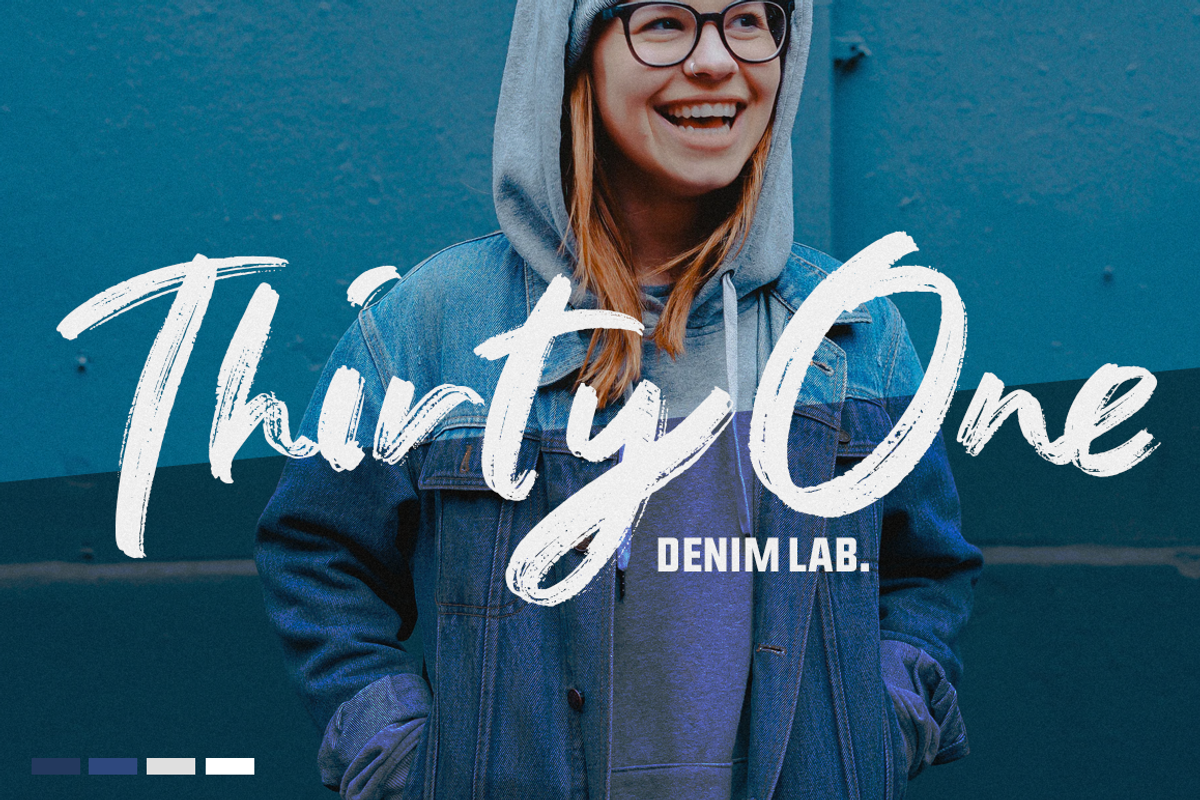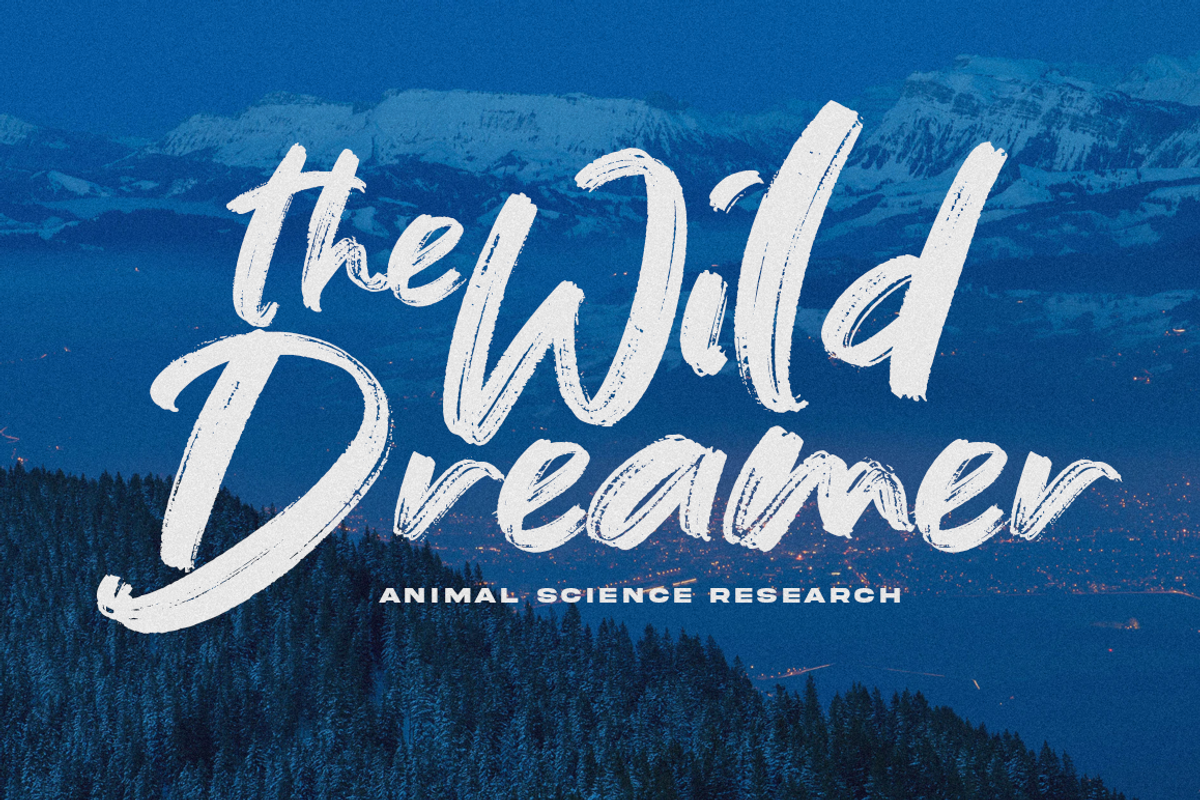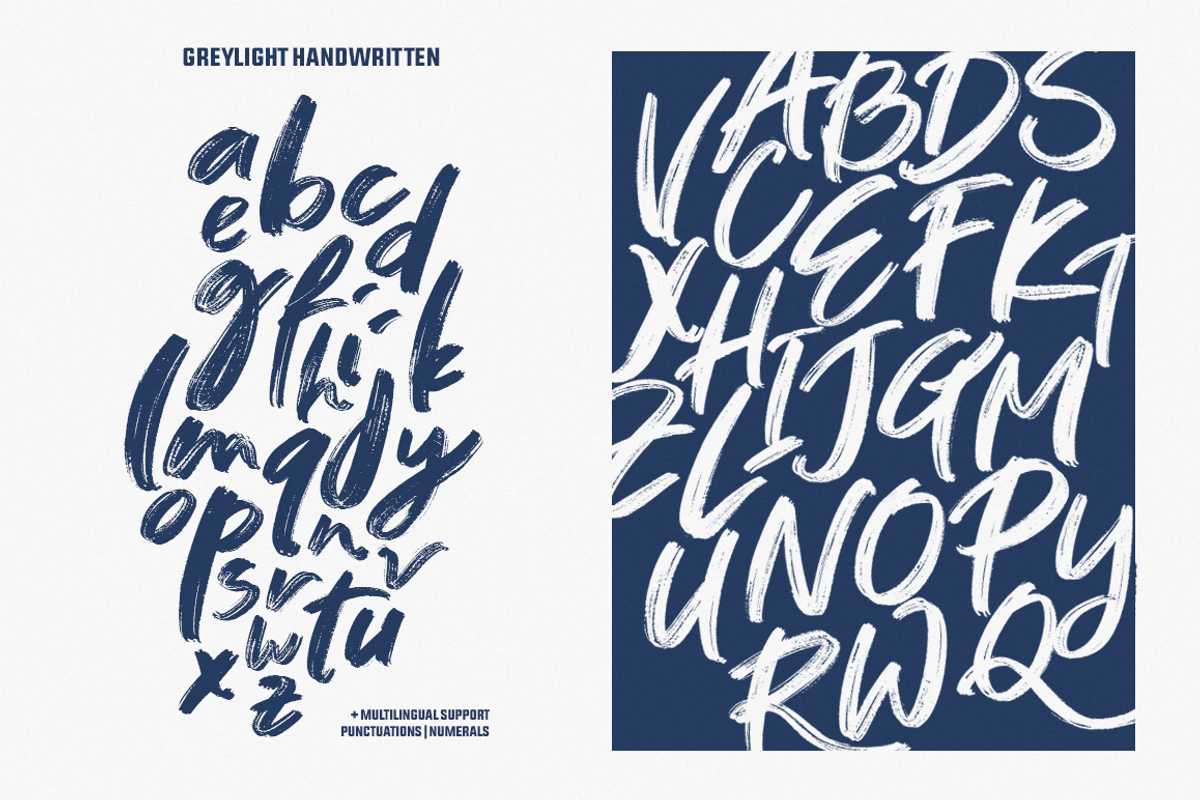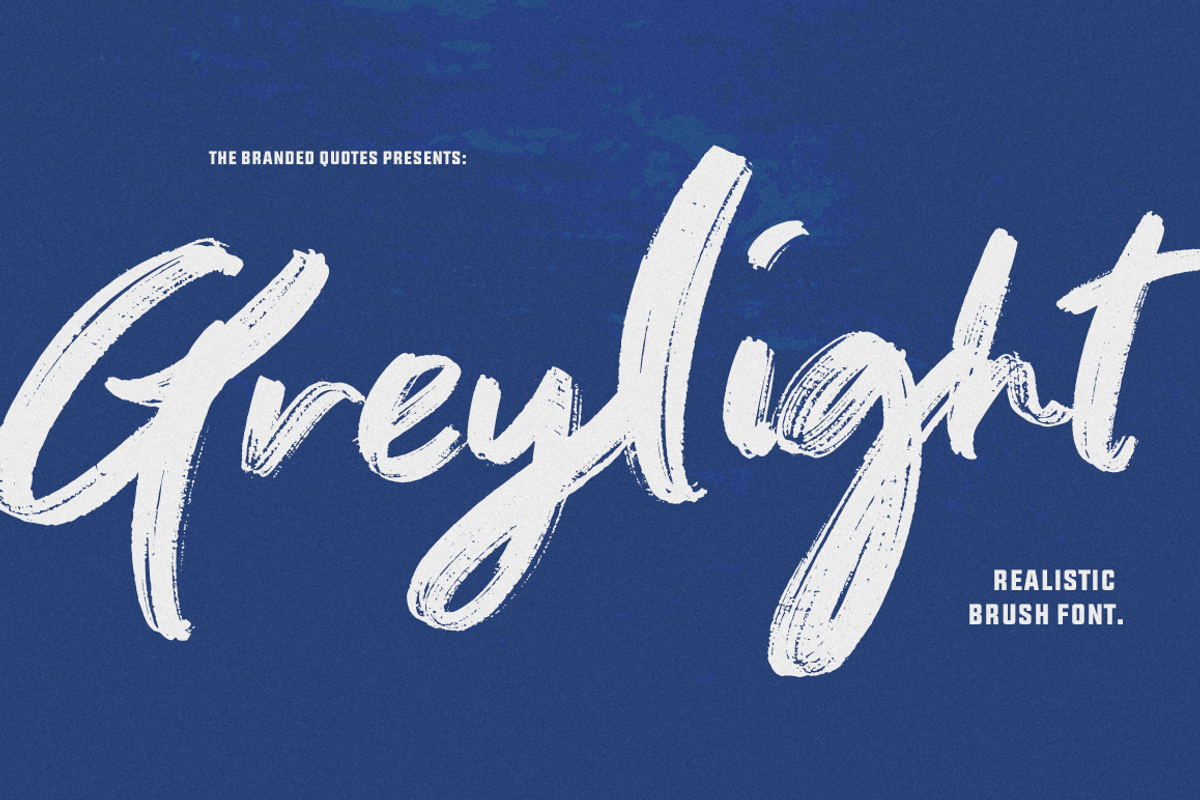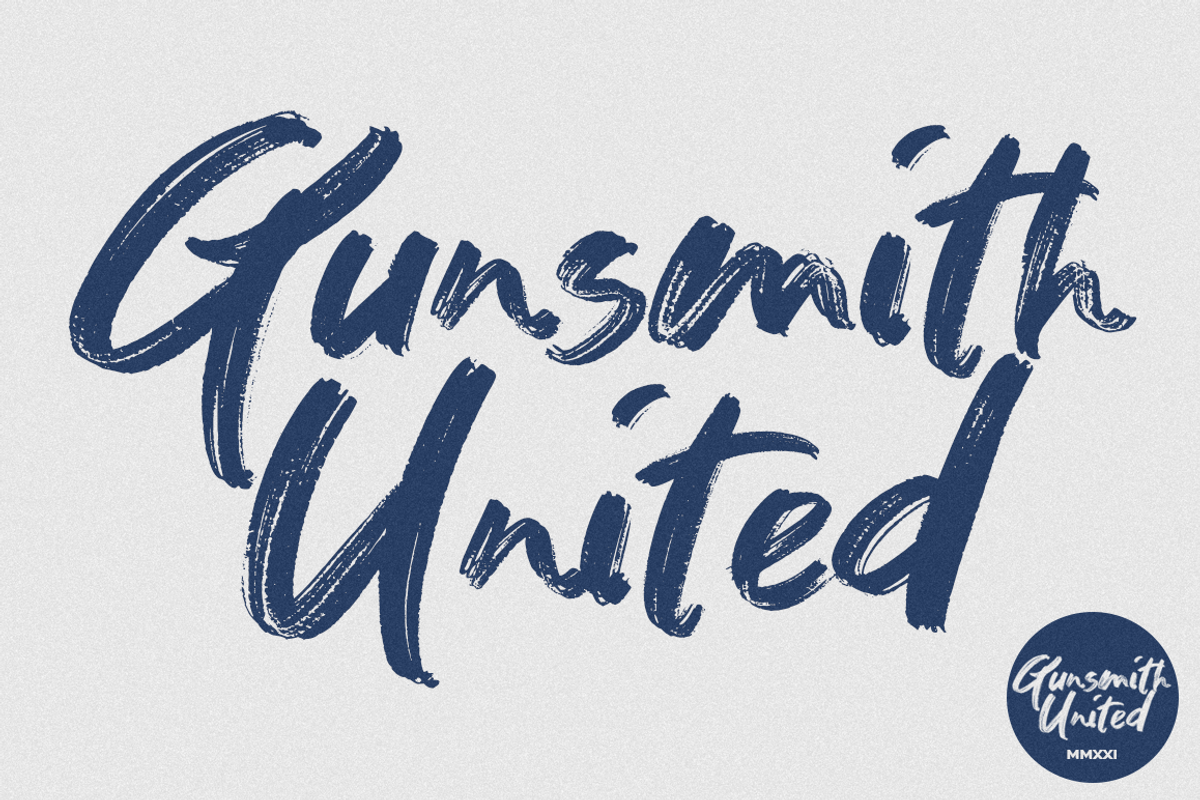
Greylight Brush Font
Bold and straightforward realistic brush font. It works well both on light and dark backgrounds. Slap it over your projects and brand name. No need to be techy, just type and go!